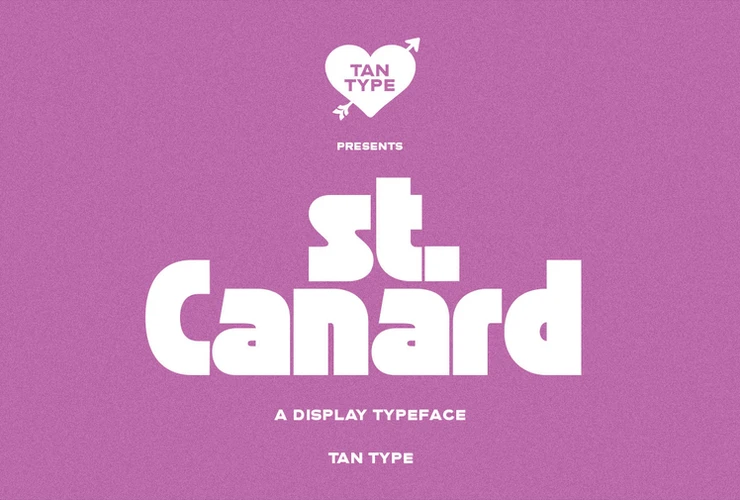
TAN St. Canard Font Free Download
TAN St. Canard free download: is there a legal option?
A mid-century display face, in TanType’s words
TanType’s description is one sentence: “St. Canard is a display typeface that embraces the mid century feeling.” Creative Market lists it under sans serif fonts. Type historian Luc Devroye’s TanType page includes St. Canard among the foundry’s 2020 releases.
“Mid century” usually points to the commercial lettering of the 1940s to the 1960s: signs, diners, packaging and travel posters. The listing does not go further than that, and we have not examined the font files, so we will not describe specific letters. The official preview images on Creative Market are the best way to judge the shapes.
The name does not describe the style. “Canard” is simply French for duck, so do not read anything about the letterforms into it.
What buyers say about spacing
The listing had one buyer review when we checked. The reviewer called St. Canard a fun, bold display font that works well in uppercase, and added: “Not 100% a fan of the kerning, but you can tweak this yourselves.”
Where the TAN St. Canard font works best
A single-style display font like this belongs in big, short text:
- Retro poster titles and event flyers.
- Café, bar and food-truck signage with a 1950s mood.
- Packaging labels and badges.
- Logo wordmarks, set in capitals as the reviewer suggests.
For body copy next to it, pick a calm typeface. Work Sans has a grotesque feel that suits mid-century layouts. Lora adds a warm serif for menus and longer descriptions.
Does TAN St. Canard support other languages?
The listing says it has multilingual support. It does not list the languages, so test your text in the preview box first.